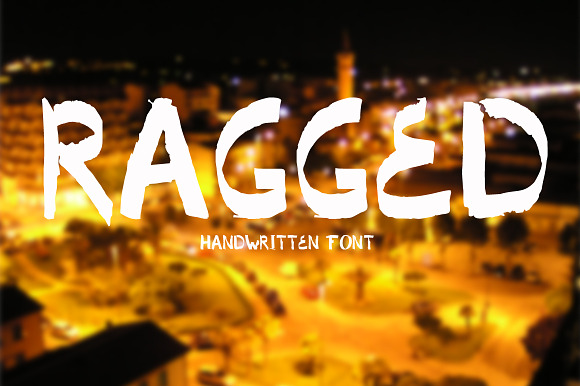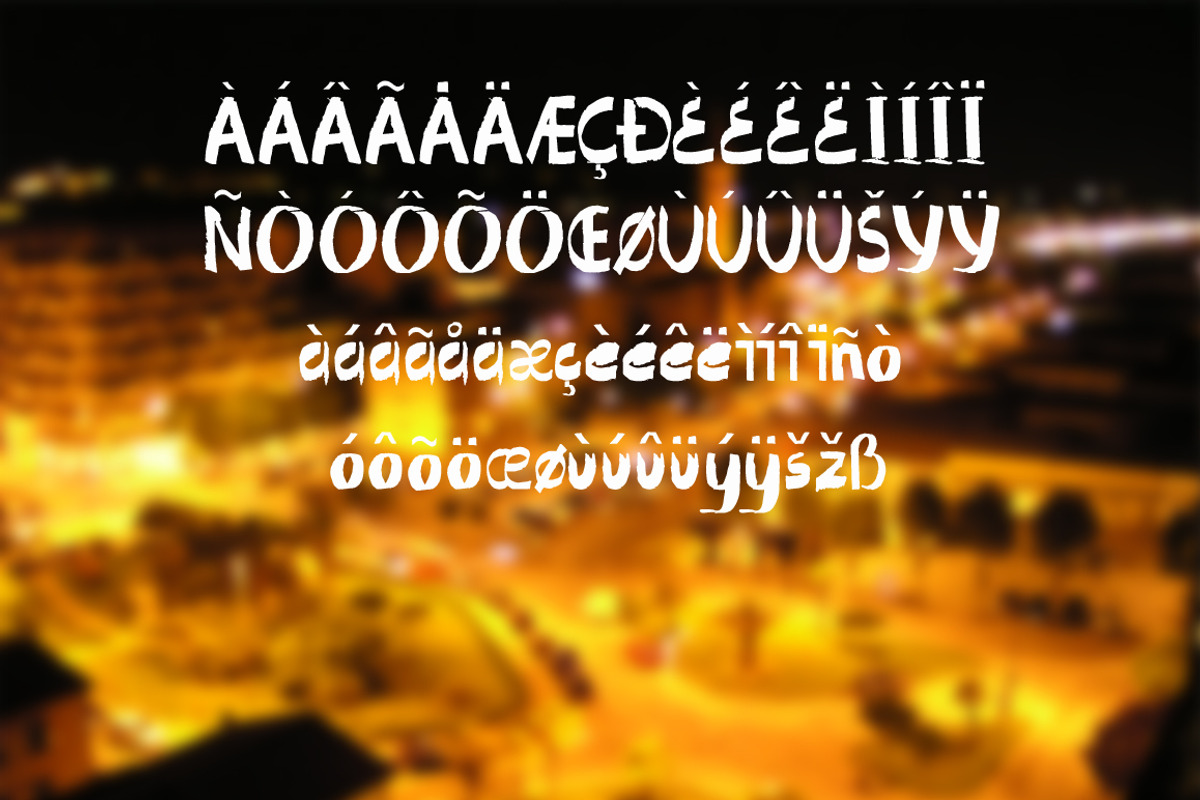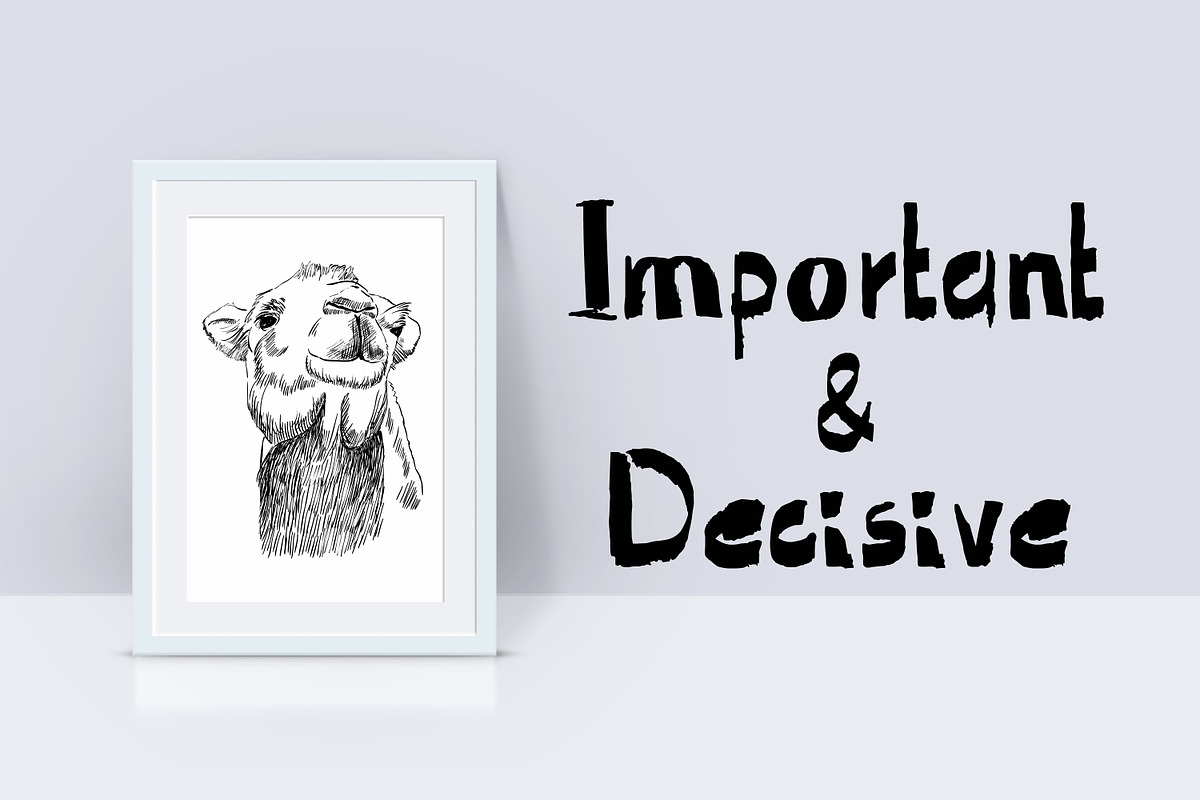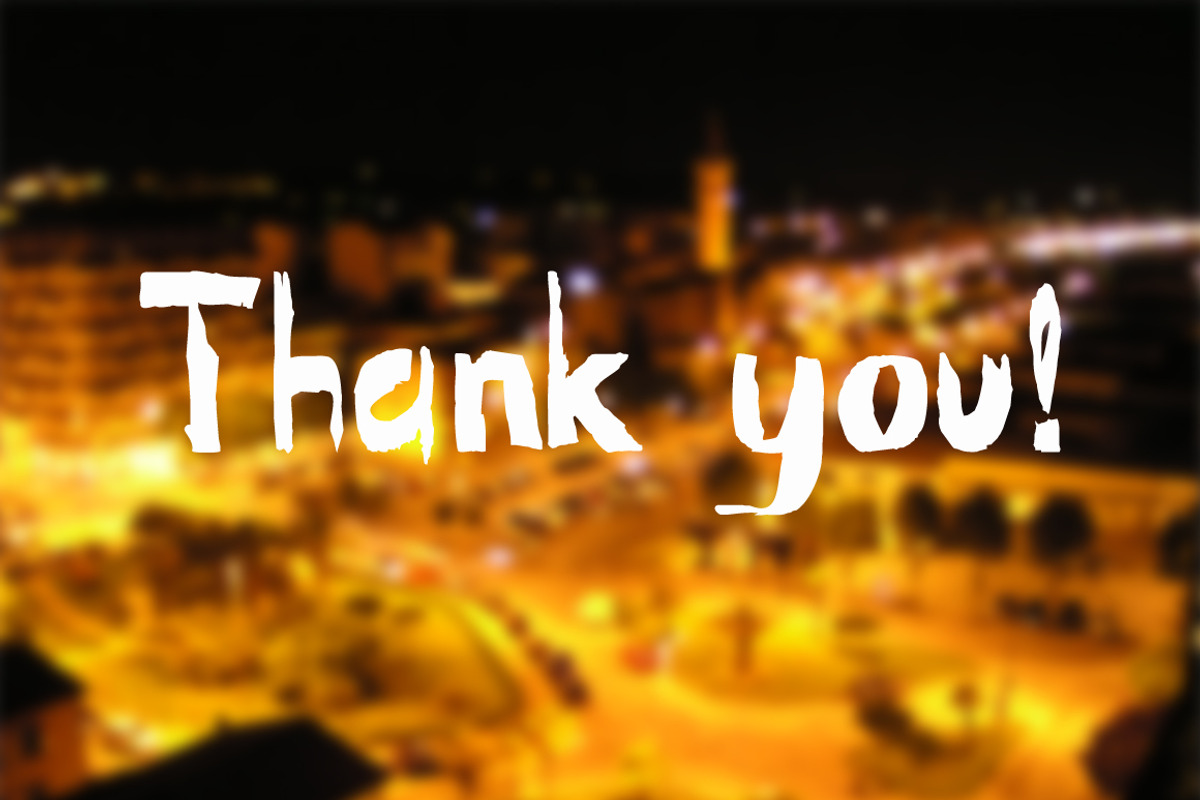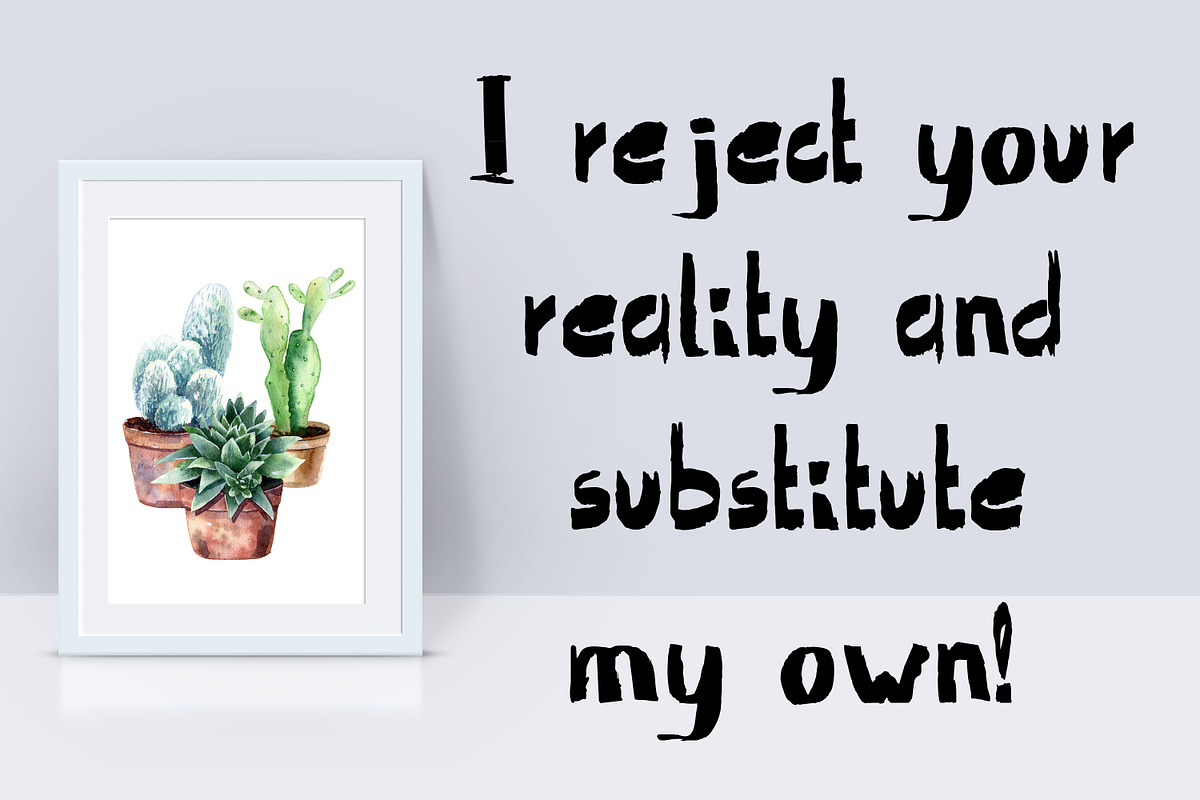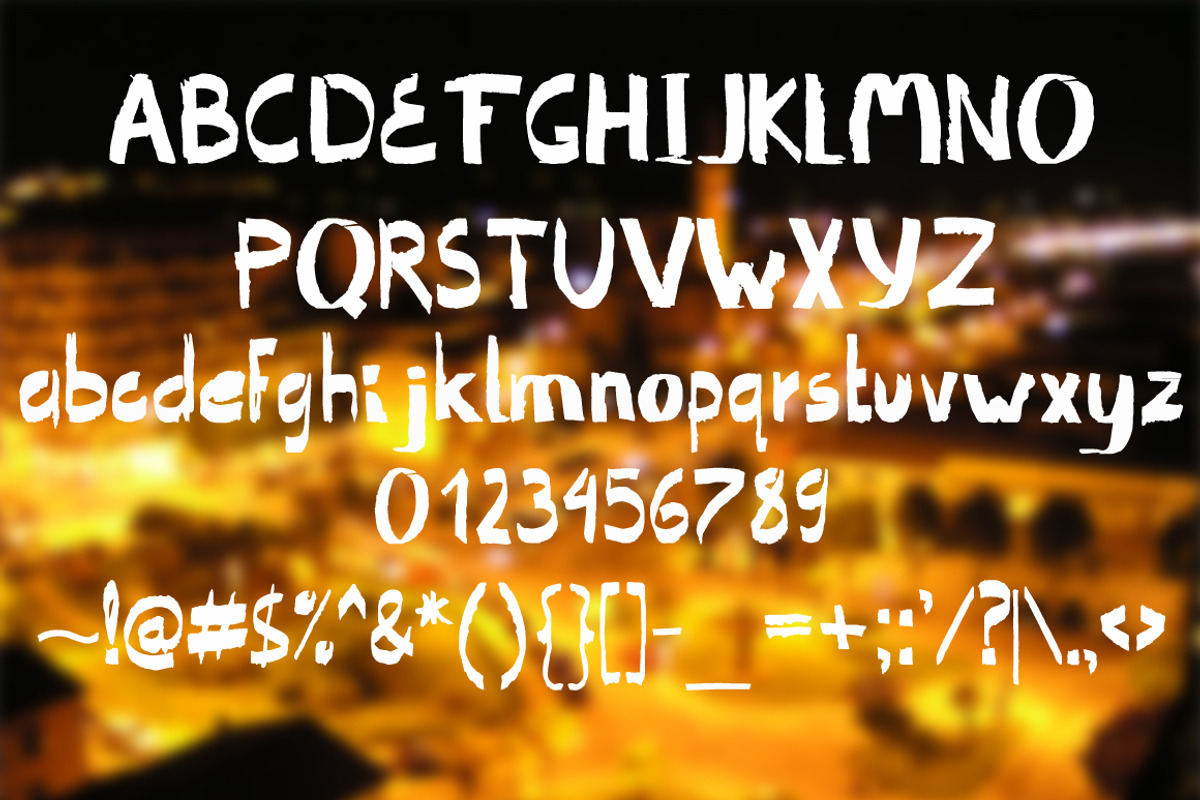
Ragged. Handwritten font.
This font is suitable for quotes, headlines, posters, apparel design, product packaging, label, blogs and more.
Ragged. Handwritten font. by TaPilipa fits naturally into Branding, posters, packaging, typography.